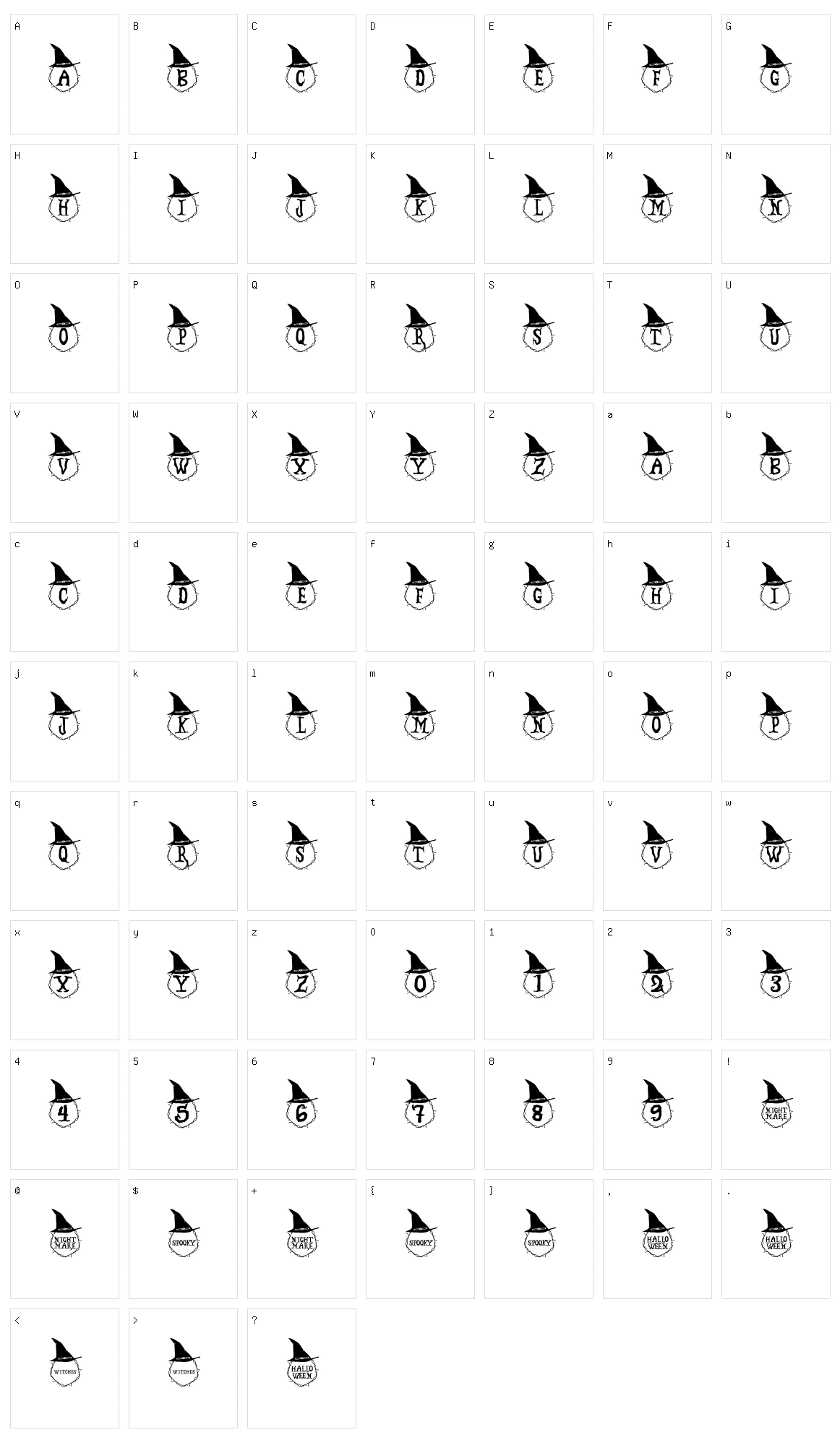
The free font Spooky Monogram is carefully designed by Mr.Soon Design, showcasing a thoughtful balance of creativity and usability and falls under the Halloween font style. When you download the ZIP file, it contains only 192.41 KB of font files, making it lightweight and quick to download. Please review the license details below to understand permitted usage and distribution rights. If license information is not available, we recommend using this font for personal projects only or contacting the author directly for commercial usage permissions.